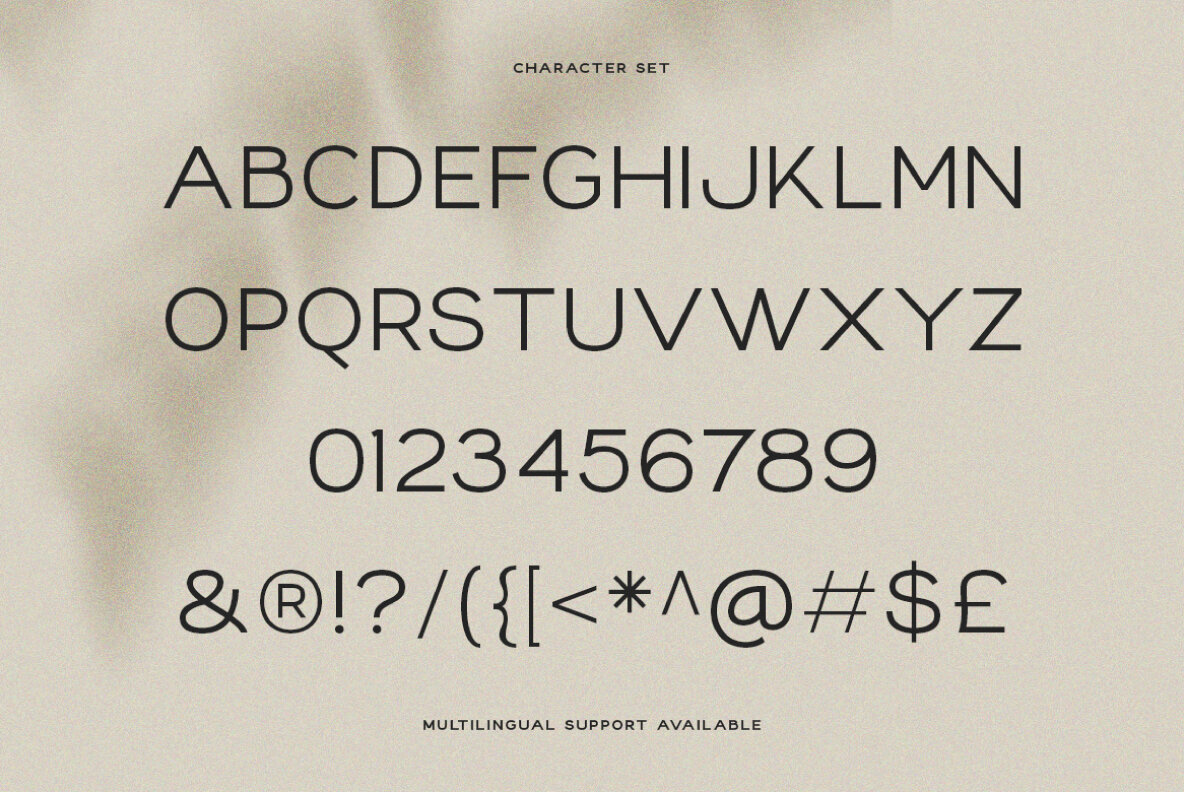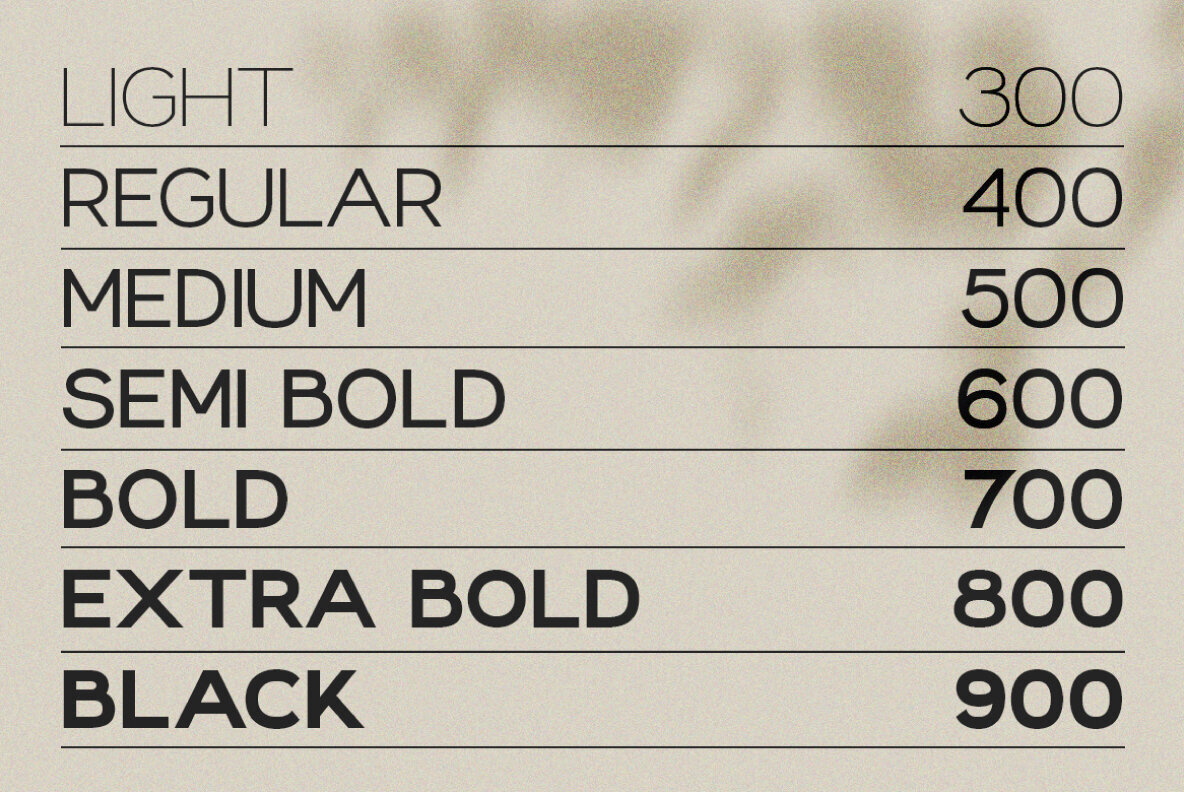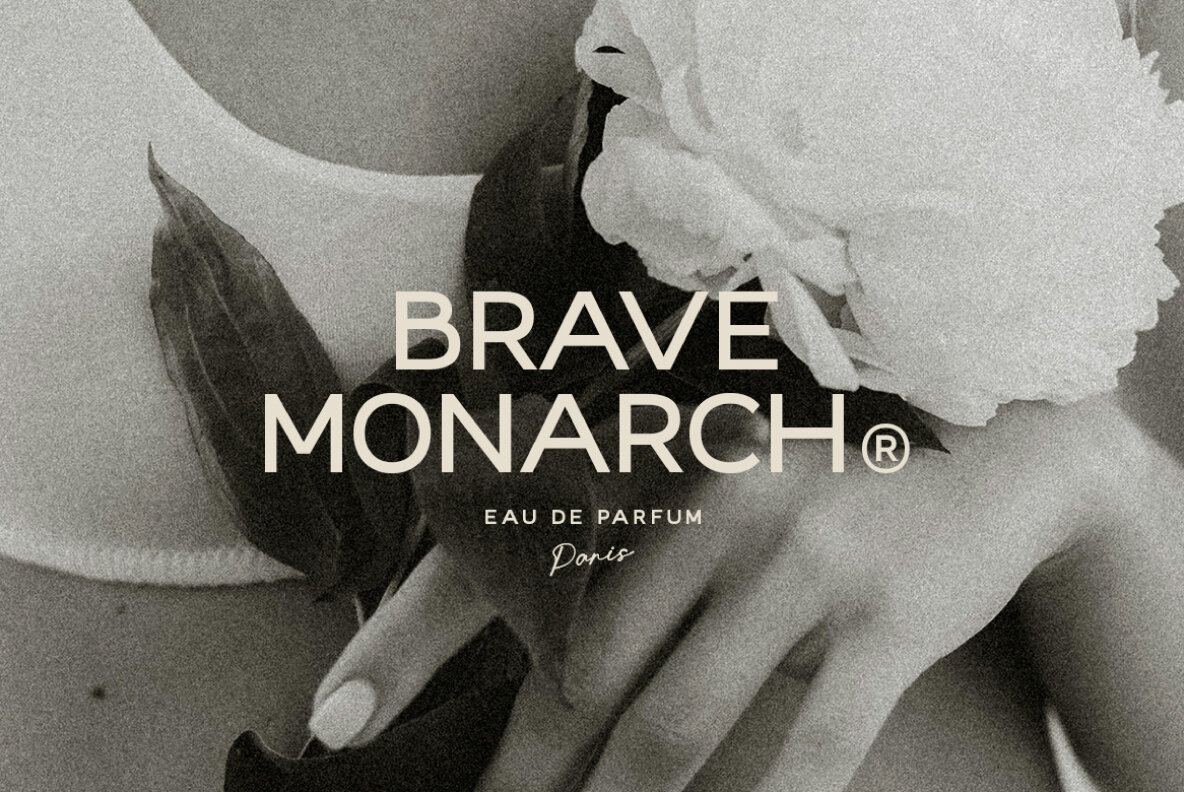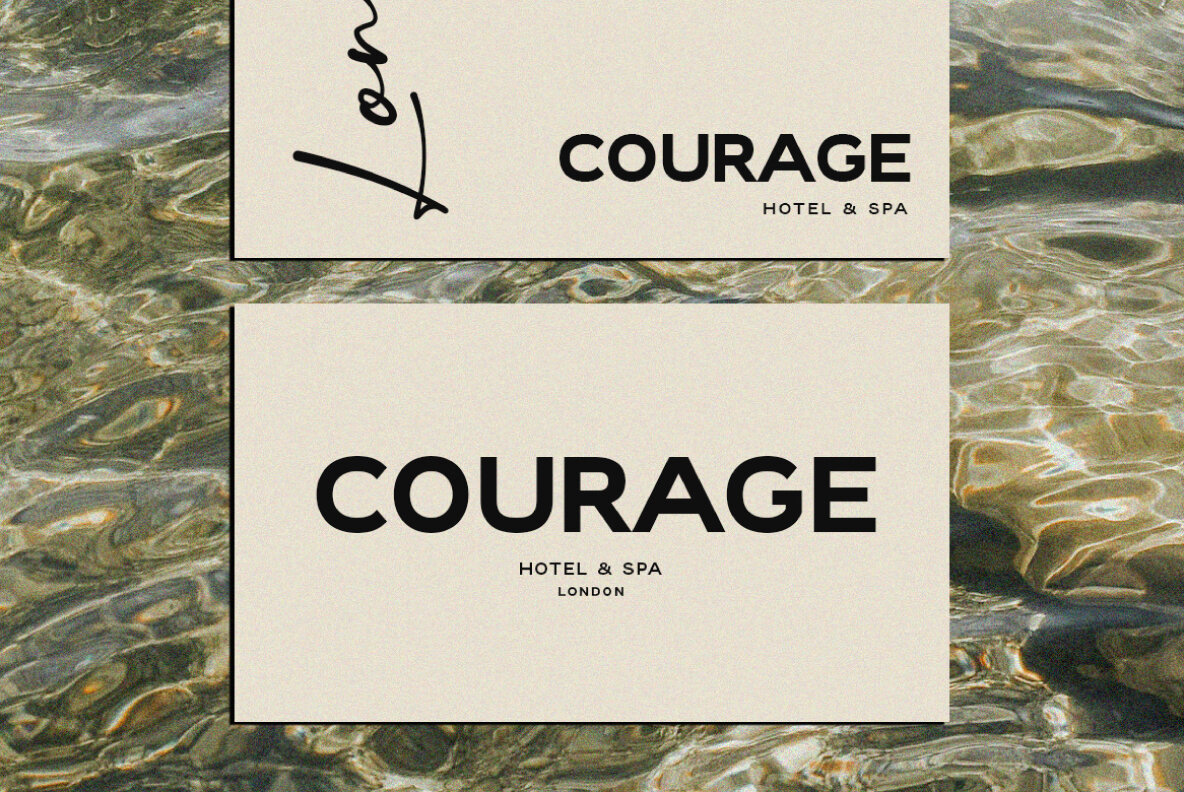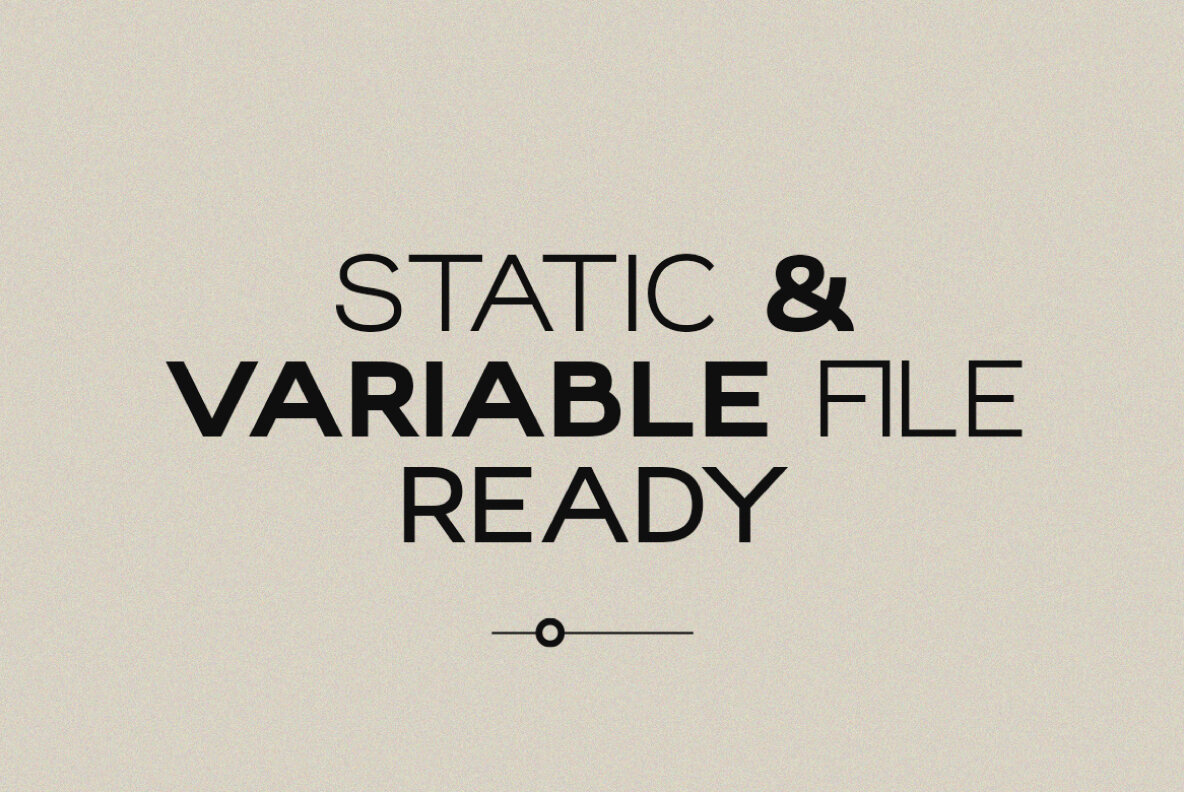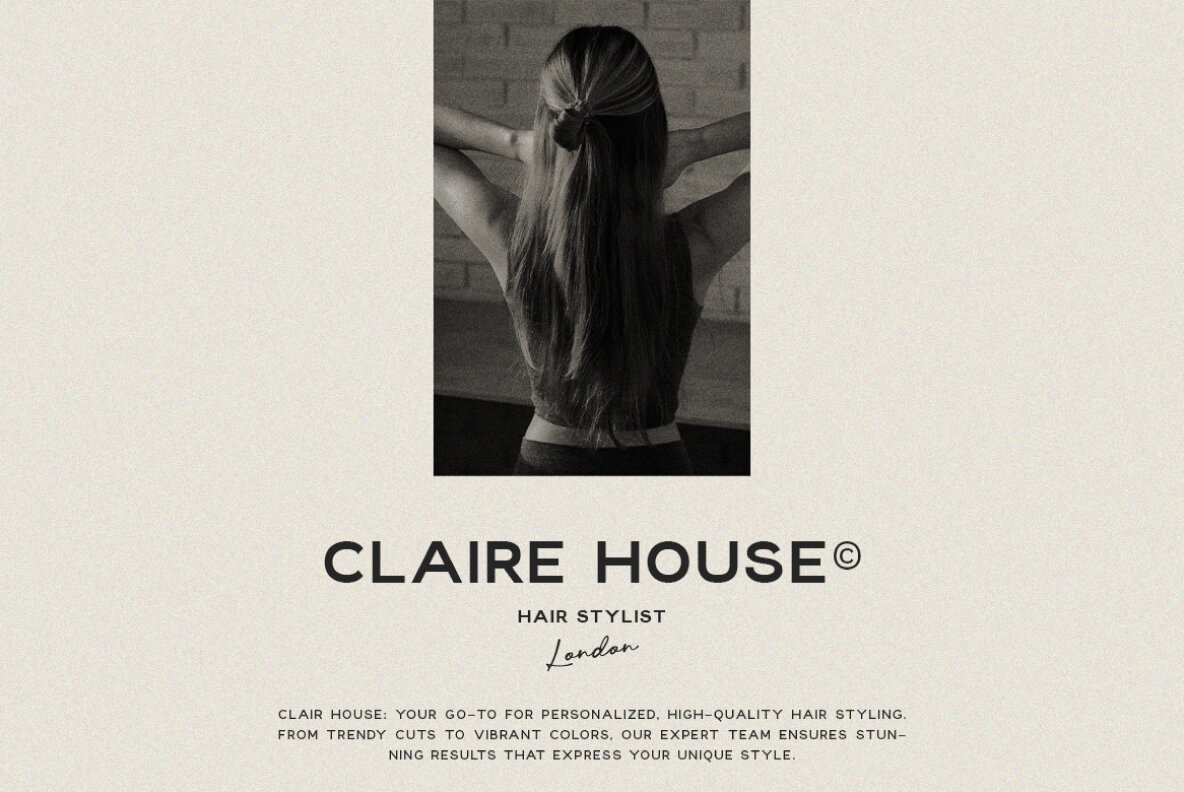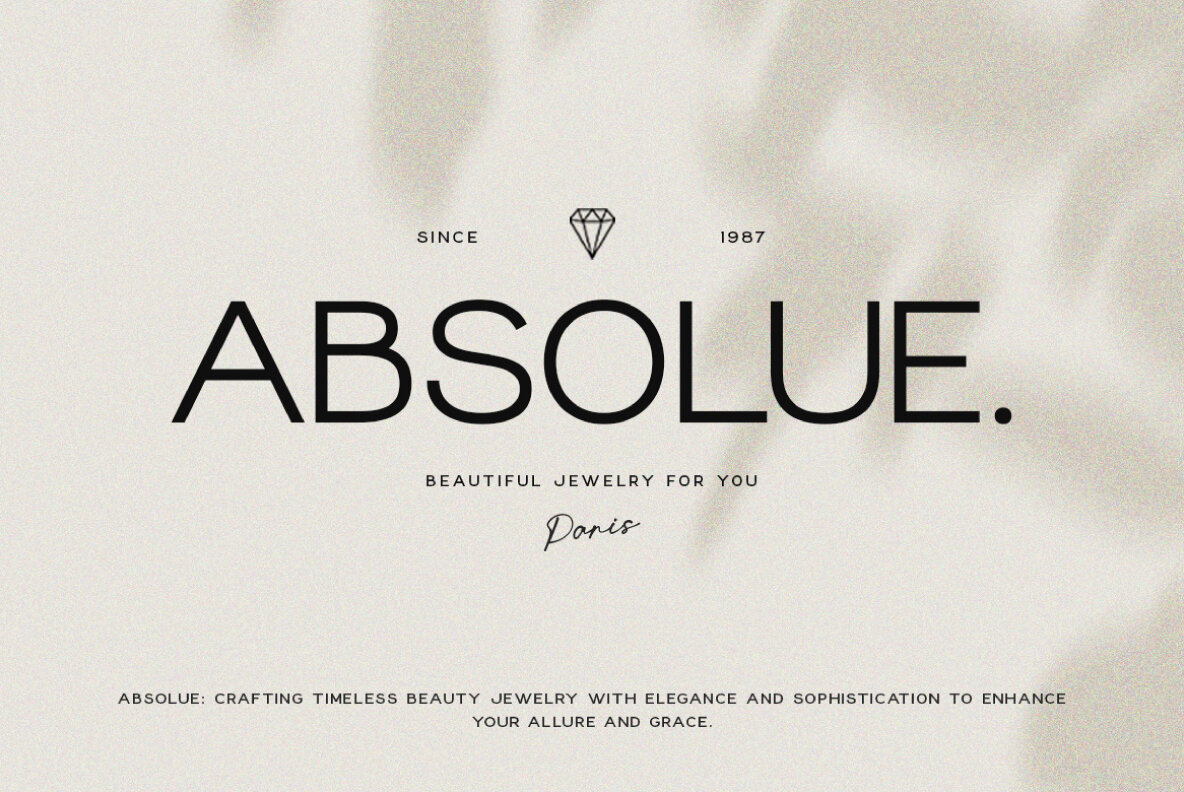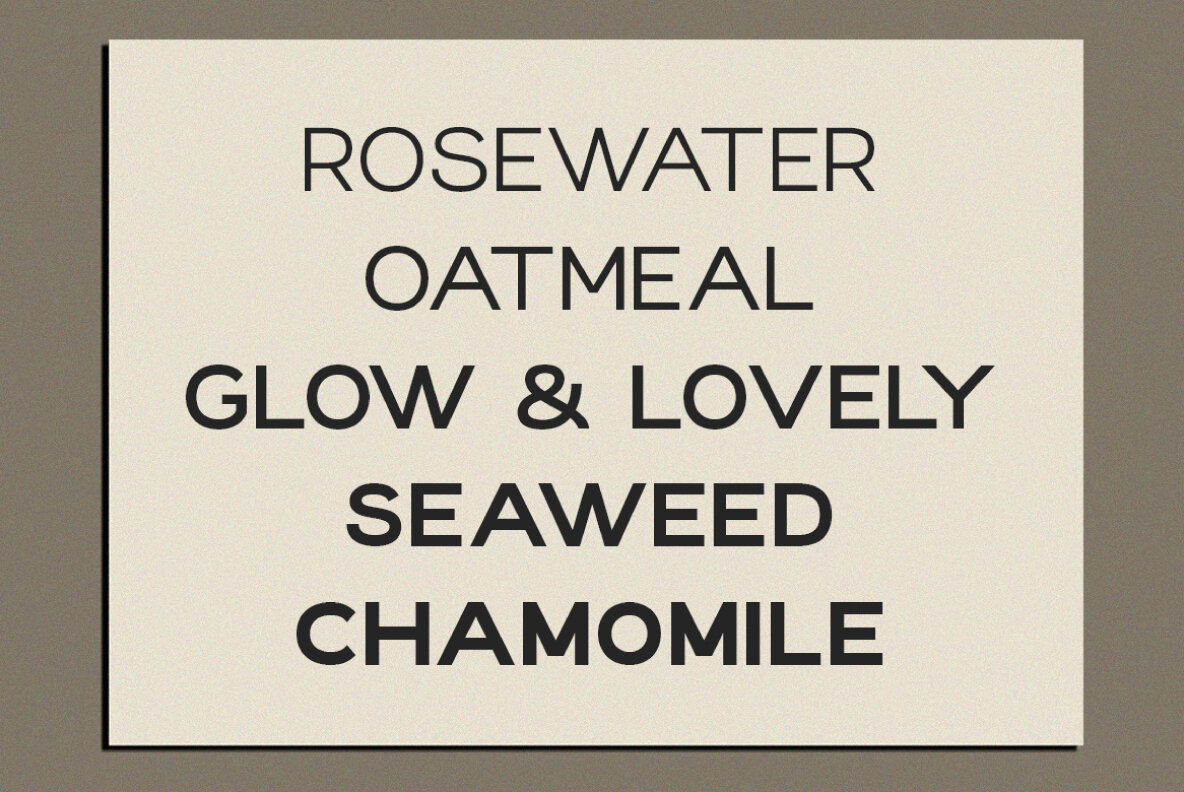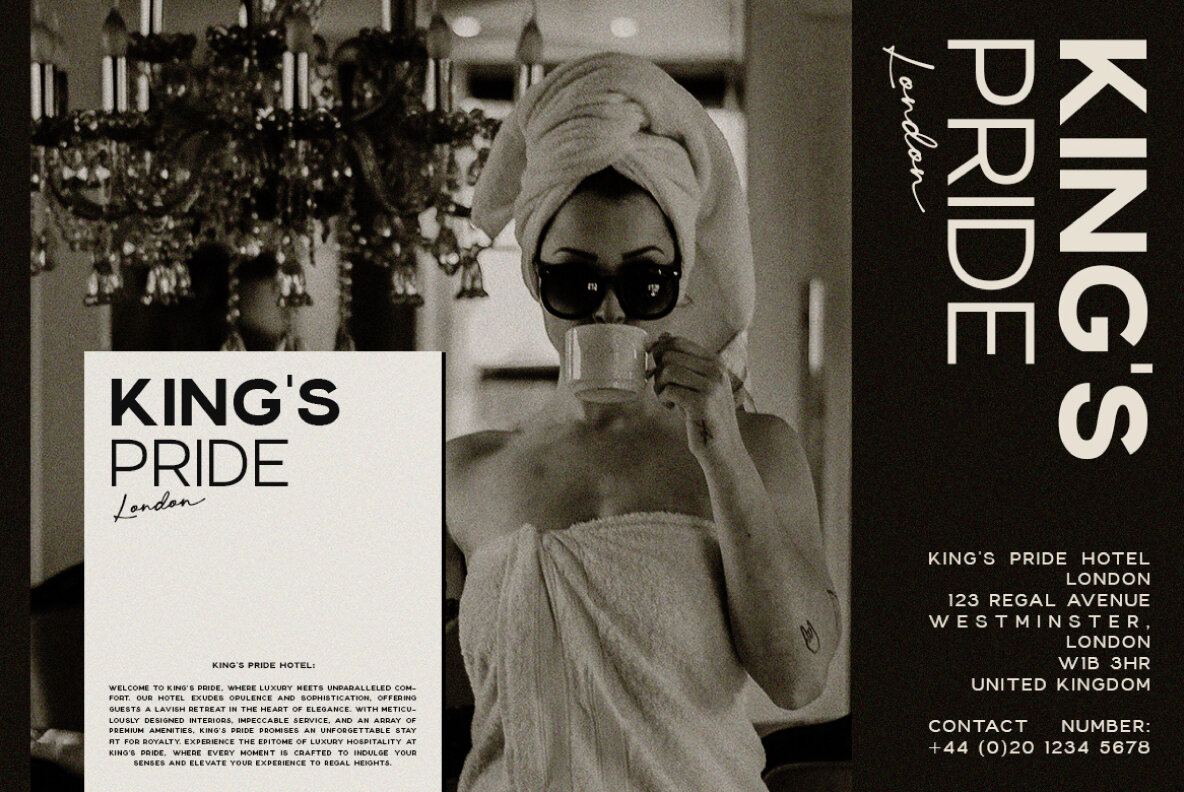
Loede Font
A versatile sans-serif font family, meticulously crafted for clean and harmonious design. Ranging from light to black weights, it offers seamless integration into various projects, perfect for branding, logos, headers, and more. With both static and variable font files available, Loede provides flexibility and creativity to elevate your designs effortlessly. Unlock the potential of timeles